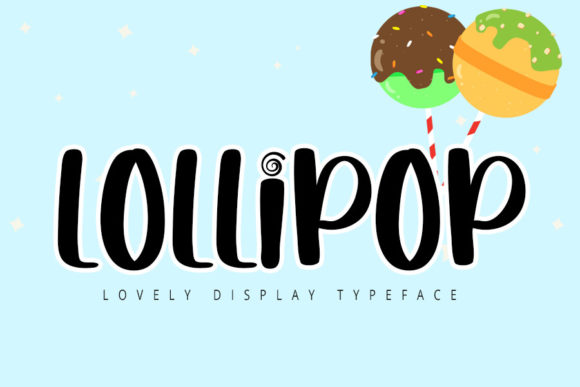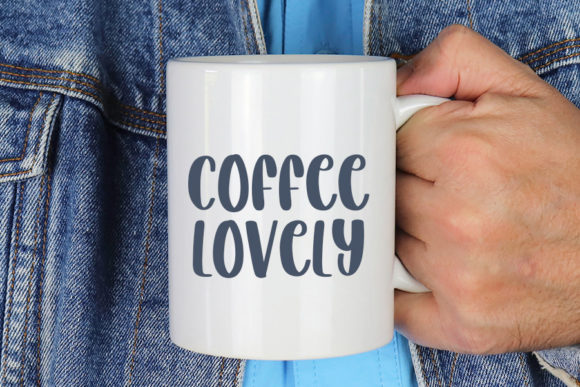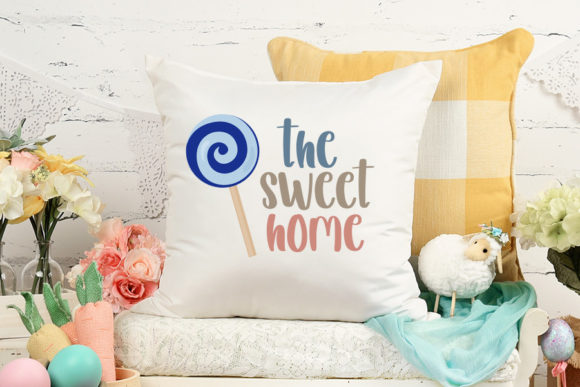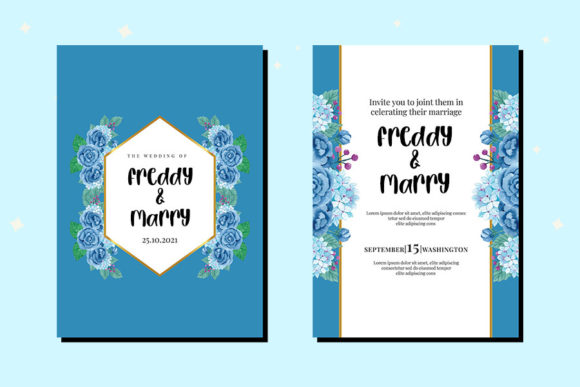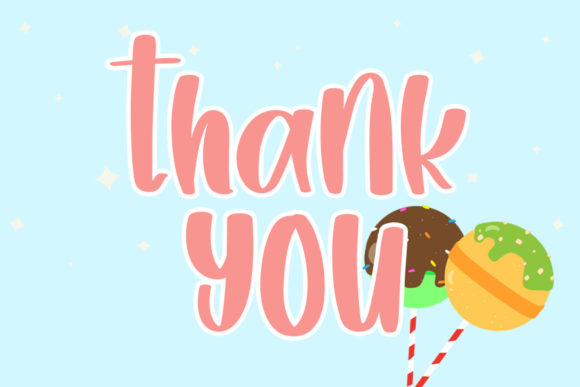
Lollipop Font
Lollipop is a casual and cursive handwritten font. This gentle font will look gorgeous on a variety of design ideas. It will add a joyful and romantic touch to each of your projects!